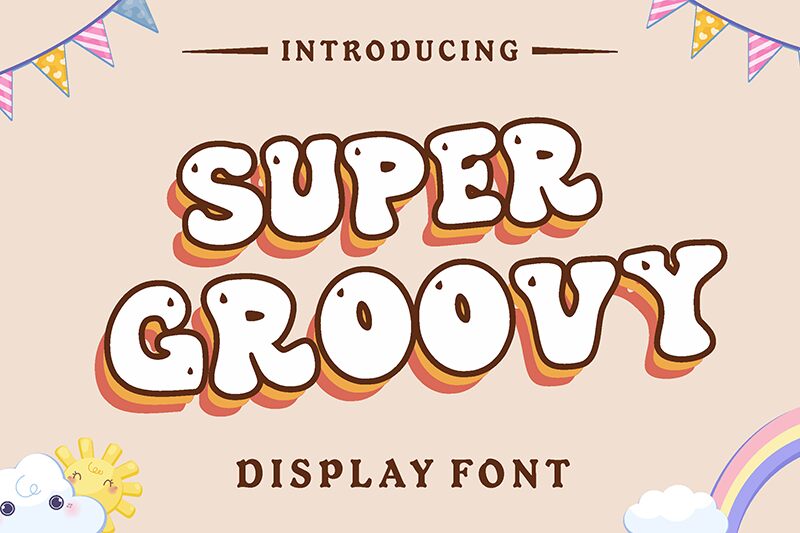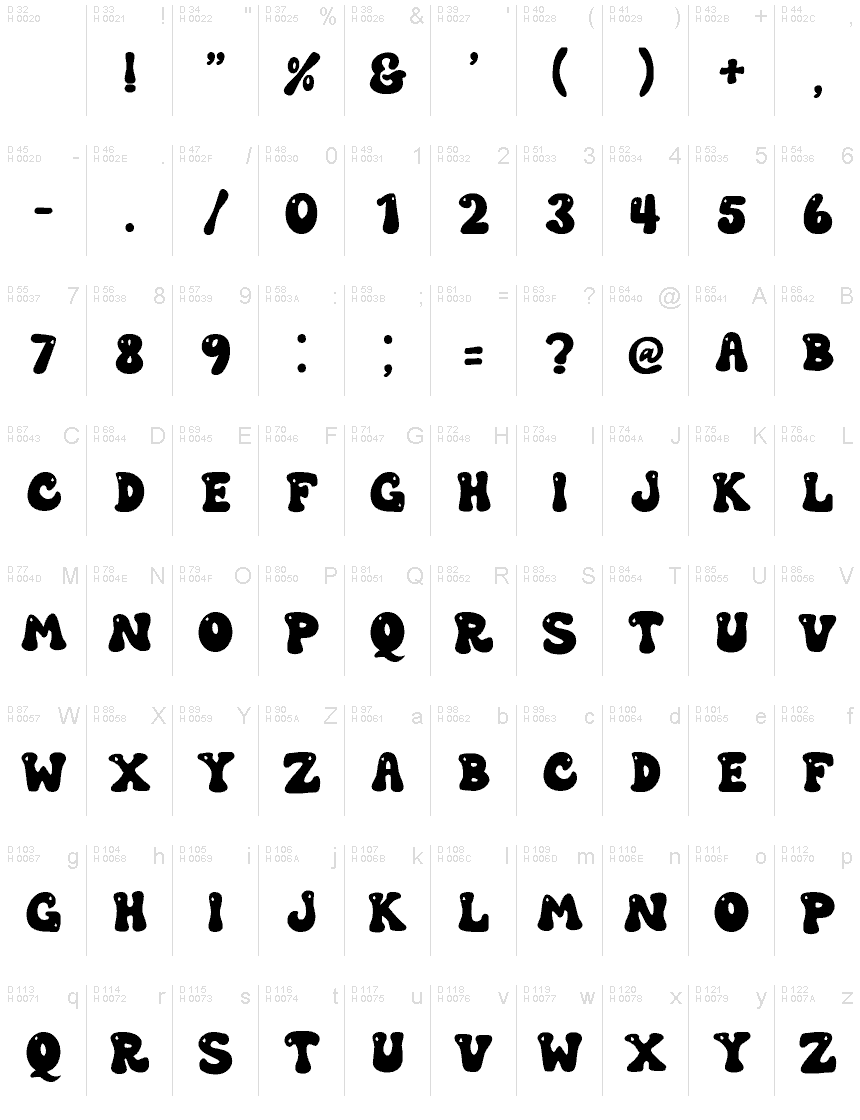
Super Groovy Regular
Super Groovy font by Riki studio123 is a sweet, cute, and unique display font. This bold groovy font has funky letters with organic shapes inspired by the retro psychedelic vibes of the 1960s. For fans of typefaces from this era, this powerhouse will stand out in designs with its attractive and eye-catching style.